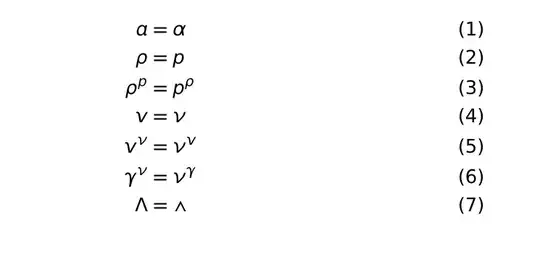
My goal is to choose a "nice" font family (serif, sans serif, monospace, and "math") for my basic LaTeX template.
I know the default setting (Computer Modern's family) is a very good choice. However, I want something a bit less "by default", a bit less "used by everyone else"... Also, I would like something with an increased readability (relative to the default setting, i.e. Computer Modern) both for on paper reading and for on screen reading, and something that is at least as good with math typing and printing. Finally, I would like a solution that I could easily use on other computers or give/suggest to a friend (i.e. it should ideally come with most standard LaTeX distributions at the present time (June 2012)). These are my motivations or goals.
Initially, I used pslatex which uses Times, Helvetica, and Courier (or slightly modified versions of them). But then I discovered that pslatex is outdated, and that I should use either (just) txfonts or (the three) mathptmx, helvet ([scaled=.90]), and courier. Then I read that tgtermes is better (or at least prefered by some people). Even later (June 2012), I then heard that newtx is even better (\usepackage[varg, cmintegrals, cmbraces, ]{newtxtext,newtxmath}).
But in the newtx/newtxtext/newtxmath documentation (and the internet follow-up searches), I got very confused about using lmodern, textcomp, bm, amsmath, amsfonts, amssymb, libertine, libertineotf, libertine-legacy (edit: initial post had a mistake ('libertine-heritage')), etc...
Now I am completely lost!
Considering my motivations, what would you answer me if I asked you:
• which ones could I use ('alone'),
• which ones could I use together,
• which ones "should" I use ('alone'), and
• which ones "should" I use together?
Added "bonus" problem: I would like to keep the characters per line ratio to a nice, comfortable level (i.e. between 60 and 75), and, ideally, to be able to set it. (Please directly see, answer, and refer to: Nicely force 66 characters per line)
• What opentype font package do you suggest?. Including math and Platino-like text. I want to use it with Luatex and use kerning and protrusion. – skan Nov 25 '16 at 11:46